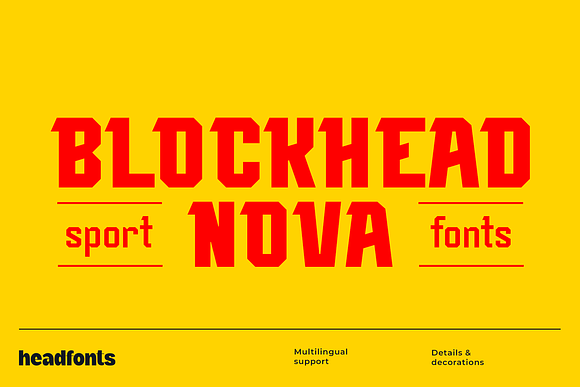
Blockhead Nova Sports Font
This athletic typeface is perfect for sports teams, fitness brands, athletic merchandise, gym signage, championship graphics, sports broadcasting, competition logos, stadium displays, and high-energy sporting design projects.
What makes this font exciting is its blockbuster power combined with athletic dominance, offering designers a commanding typeface that captures the intensity of competitive sports while delivering championship-level impact and explosive sporting sophistication.
The Blockhead Nova Sports font family includes regular, bold, condensed, extended, and championship variations, providing complete athletic design solutions for creating powerful sports visual identities.
Blockhead Nova Sports Font features carefully engineered athletic styling with authentic competitive character that conveys genuine sporting expertise. Each character has been designed for maximum visual impact and energy, with bold proportions and dynamic elements that enhance the championship aesthetic. The font's athletic qualities make it particularly effective for professional sports teams and fitness applications.
Professional designers choose Blockhead Nova Sports Font for projects requiring authentic sporting credibility and athletic atmosphere. Its competitive heritage makes it exceptionally well-suited for sports organizations, fitness centers, and athletic lifestyle brands. The font's versatile sports variations allow designers to control the athletic intensity, from subtle sporting elegance to full championship dominance.
The complete Blockhead Nova Sports Font package offers extensive athletic ornaments and sports decorative elements that enhance the competitive aesthetic. Advanced championship features allow designers to create complex sporting effects with multiple victory-inspired options. This comprehensive athletic toolkit ensures designers have everything needed to create authentic sports communications that celebrate the relentless pursuit of athletic excellence and competitive achievement.